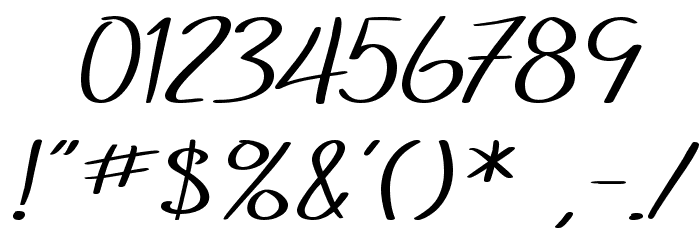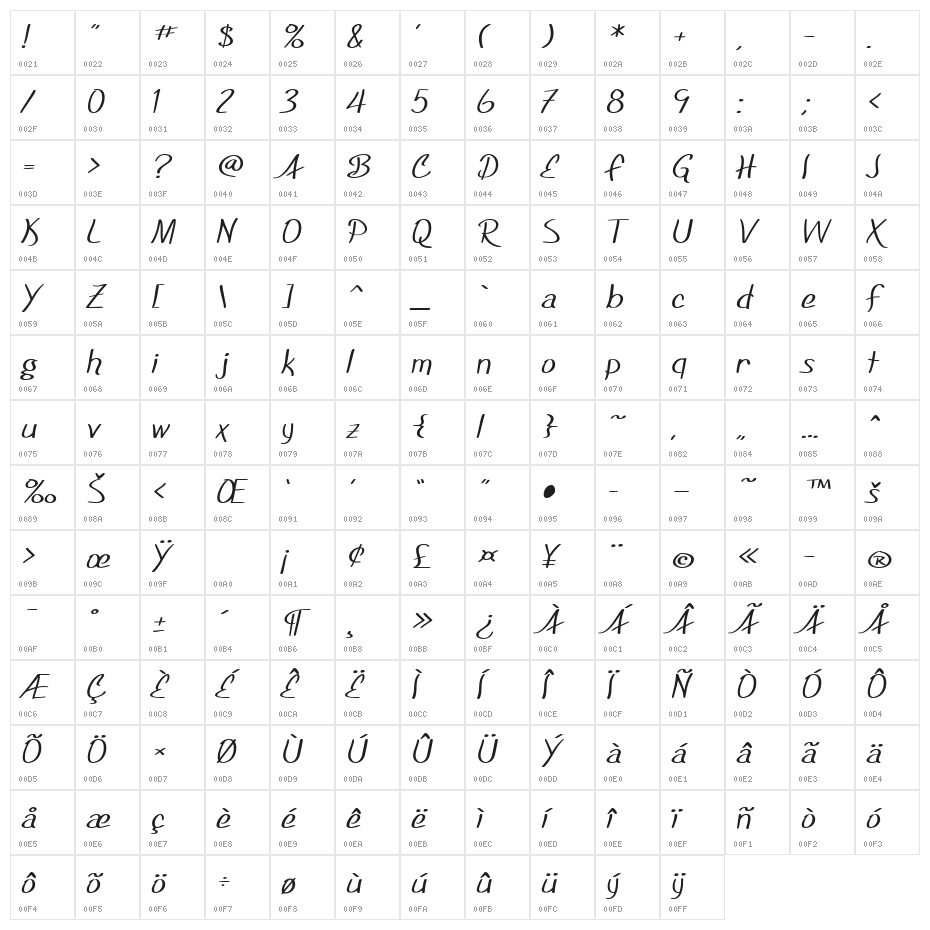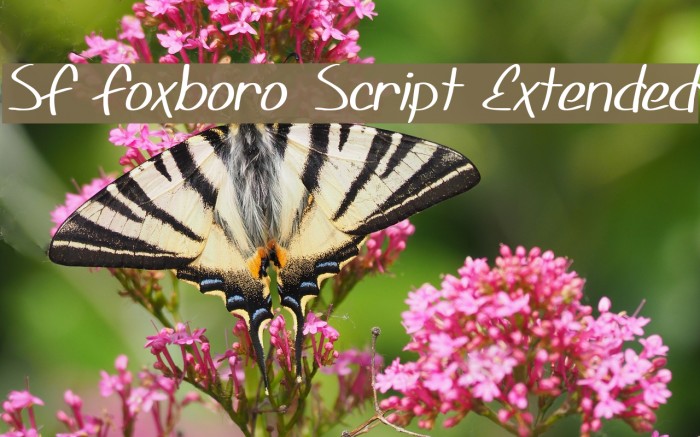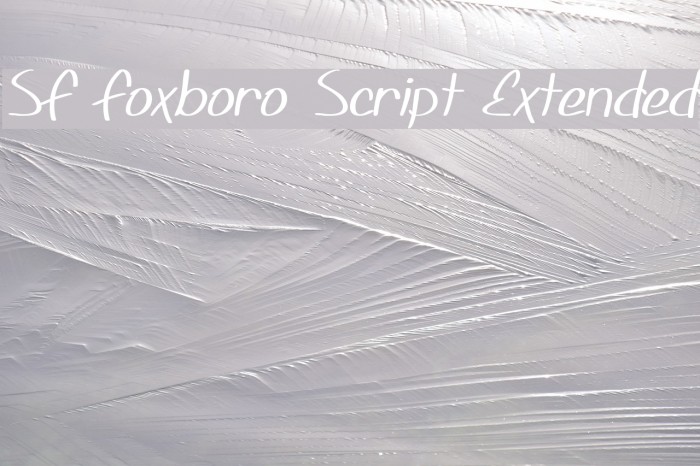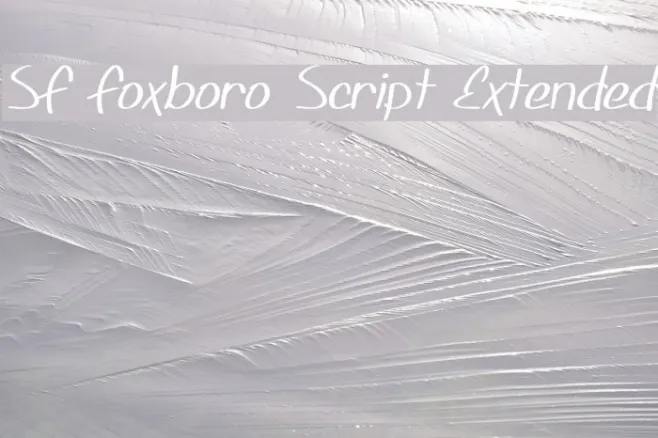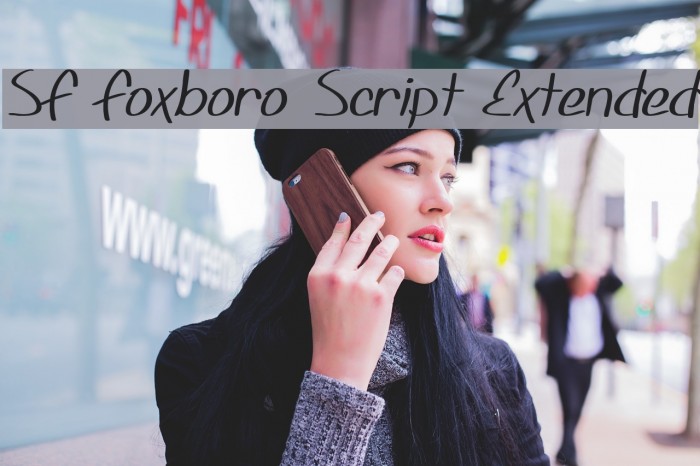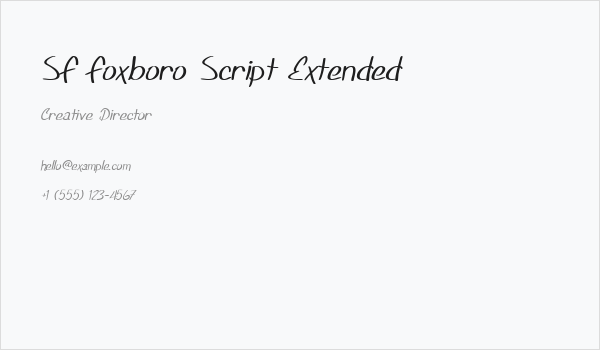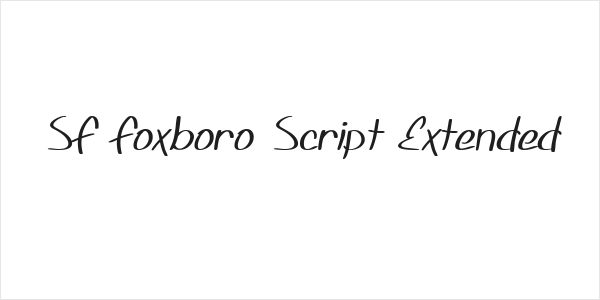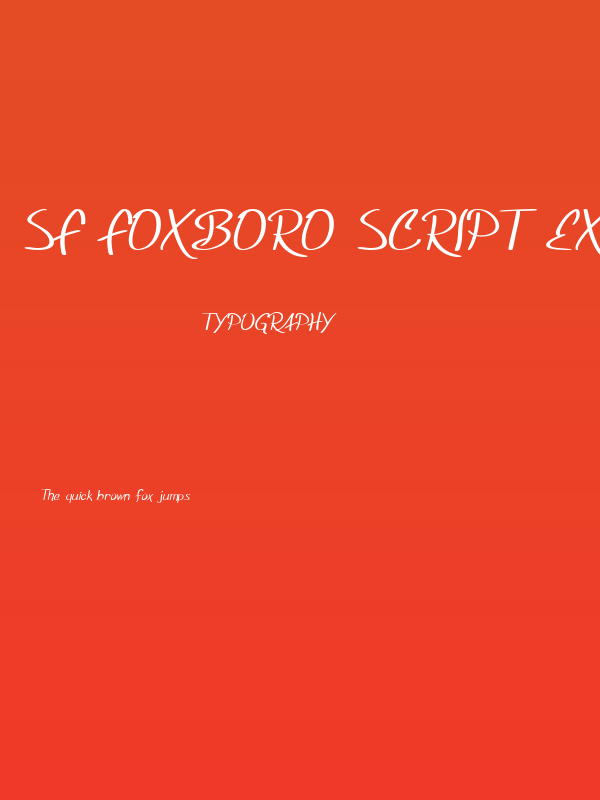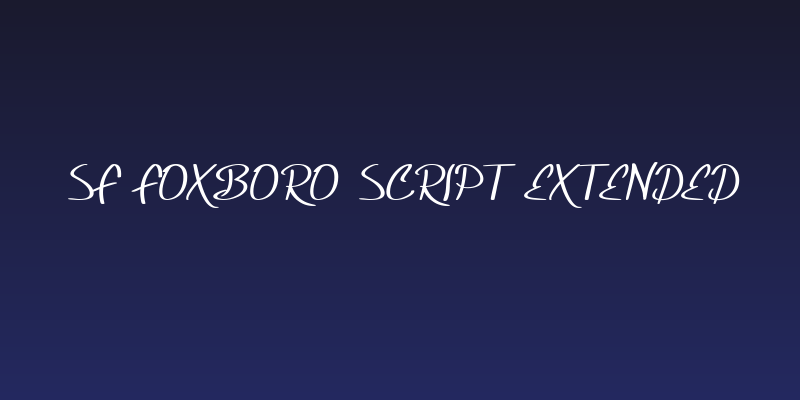
SF Foxboro Script Extended Font
SF Foxboro Script Extended Description
This font features an elegant and flowing script style, characterized by its smooth, cursive strokes and a sense of fluidity. The uppercase letters are slightly more elaborate, with graceful loops and curves, while the lowercase letters maintain a consistent, connected flow. The numerals are designed to match the script's style, offering a cohesive look. Special characters are integrated seamlessly, maintaining the font's overall aesthetic. The font's design is both sophisticated and approachable, making it suitable for a variety of creative applications.
| Proposed Projects | Ideal for wedding invitations, greeting cards, branding, and elegant signage. |